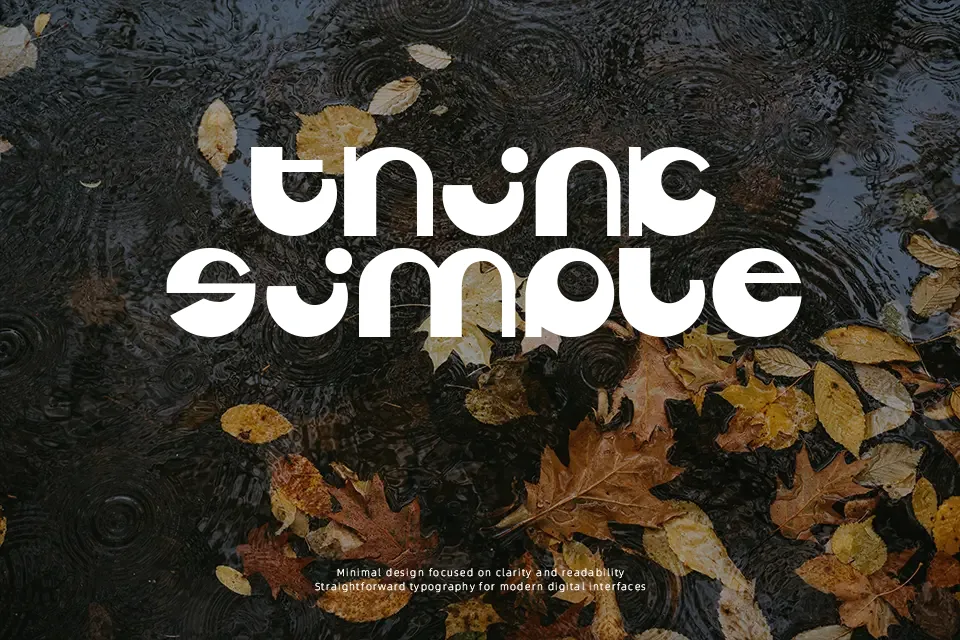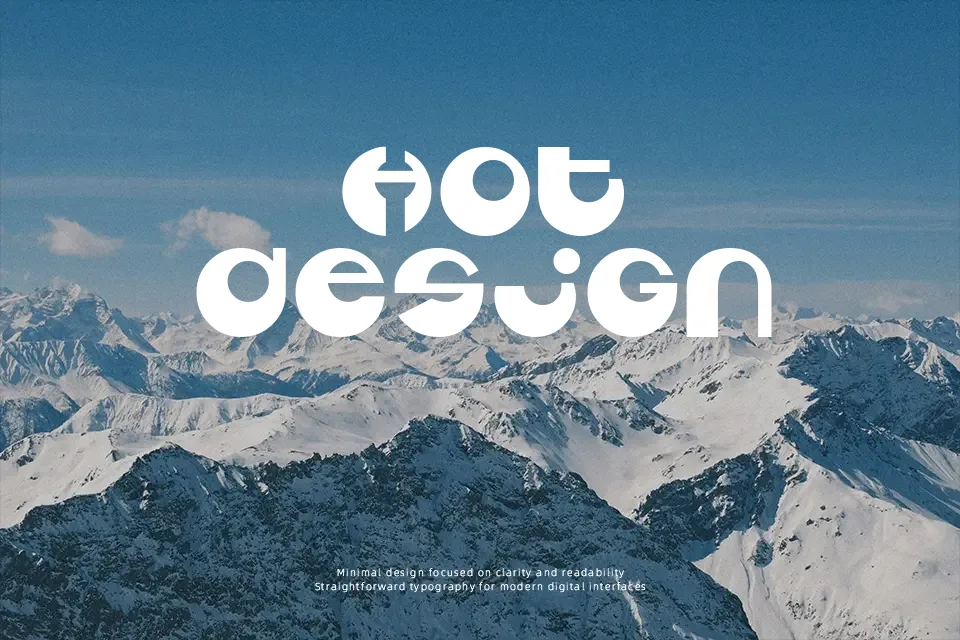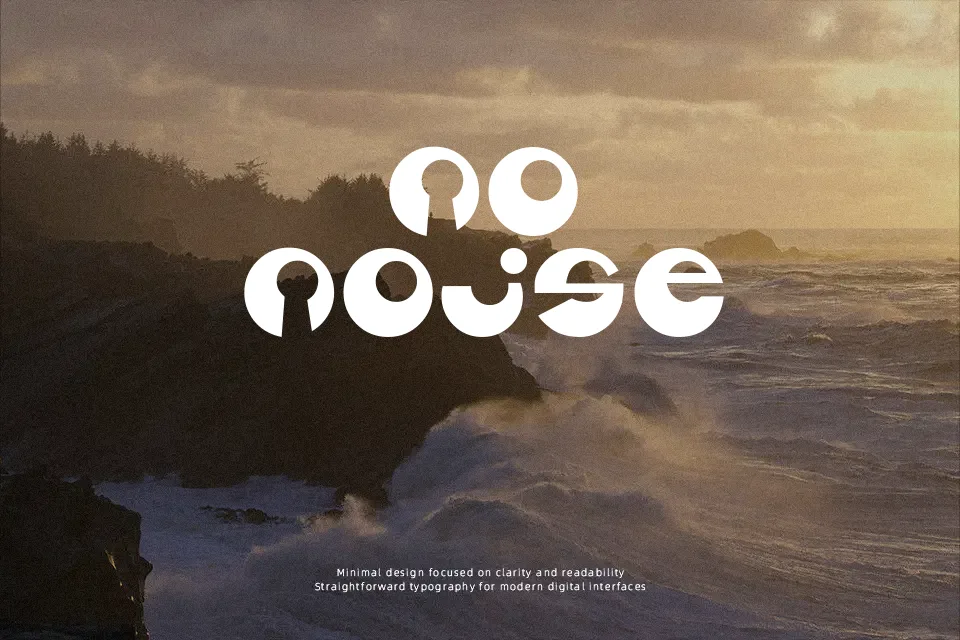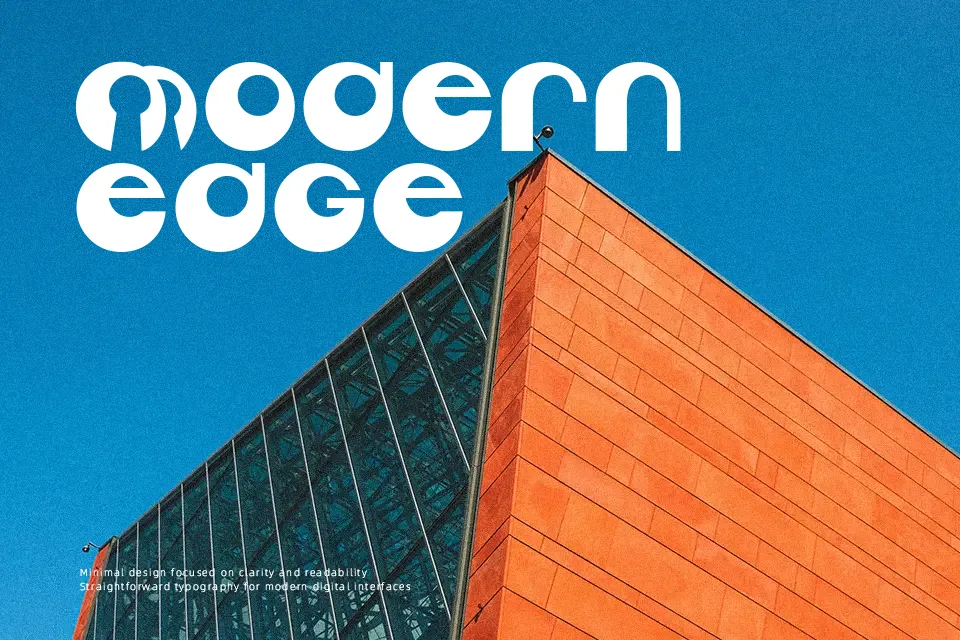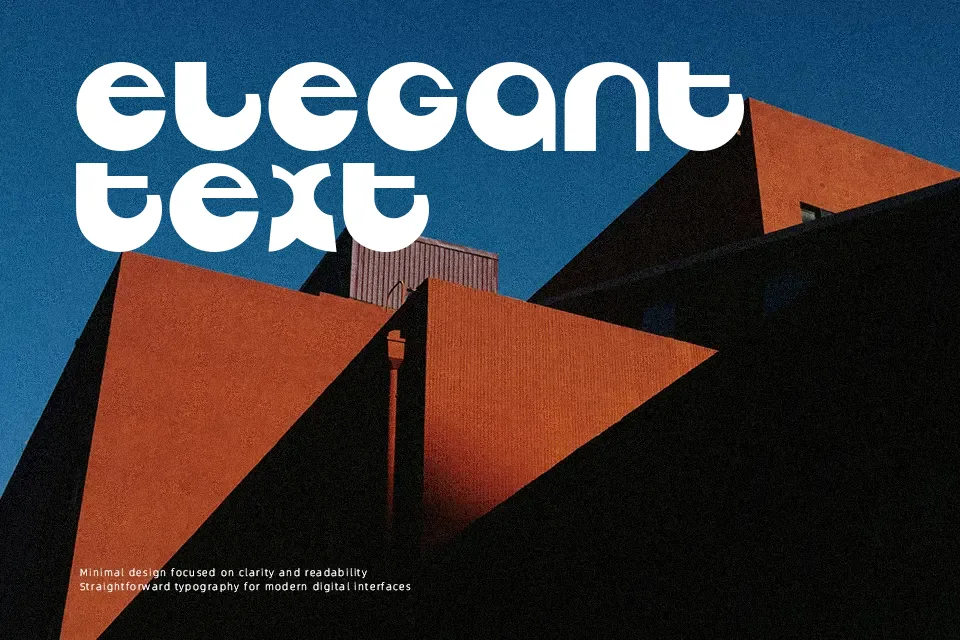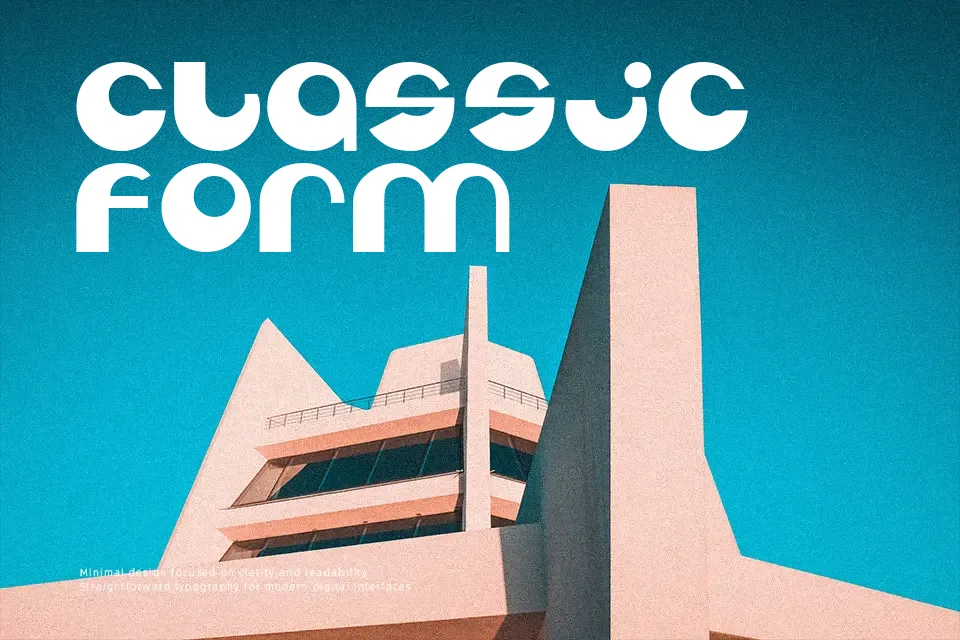
Tabun Font
Tabun Font features an ultra-heavy display construction defined by blocky letterforms, uniform low-contrast weight, and distinctive inner negative spaces. The design relies on tightly spaced geometric structures with rounded outer corners that give each glyph an unmistakable presence in large titles. Generous stroke thickness provides remarkable impact in short phrases, making the typeface well suited for creative merchandise, electronic music branding, and event signage. However, the dense anatomy and enclosed counters reduce character separation at reduced scales. Consequently, the typeface remains less effective for continuous body copy or multi-line paragraphs, functioning best when applied to prominent hero headers.
Best For: music festival posters, retro apparel graphics, electronic album cover art, merchandise headlines
Not Ideal For: long paragraph text, dense editorial layouts, small interface labels, technical documentation
Perfect for branding, headline, and music, with a bold and decorative style.